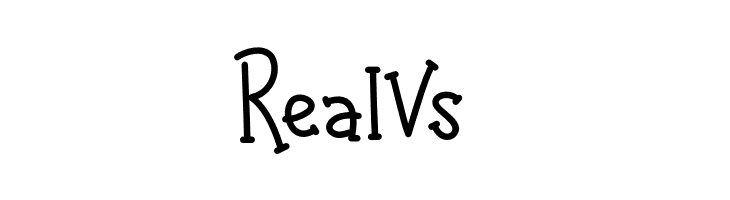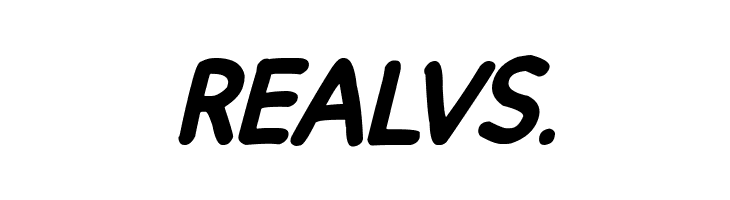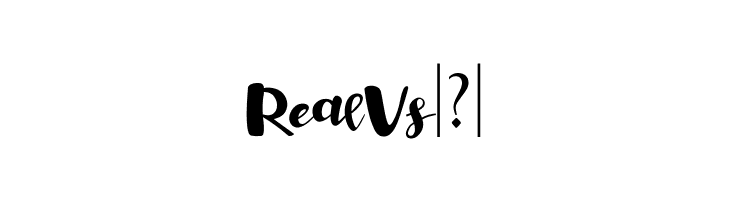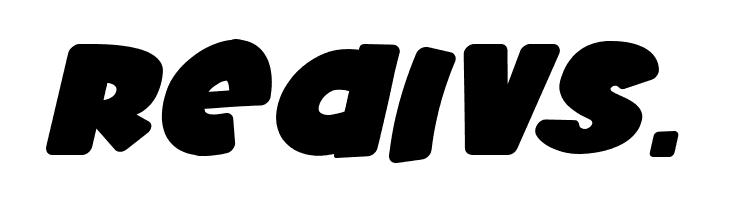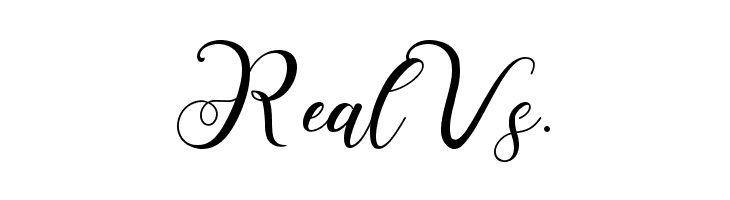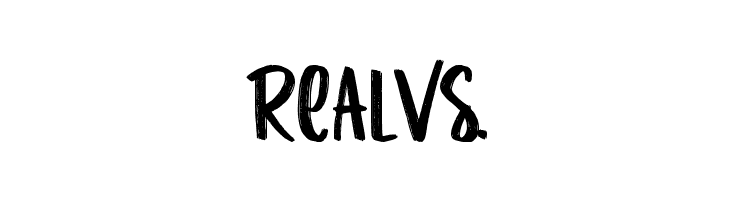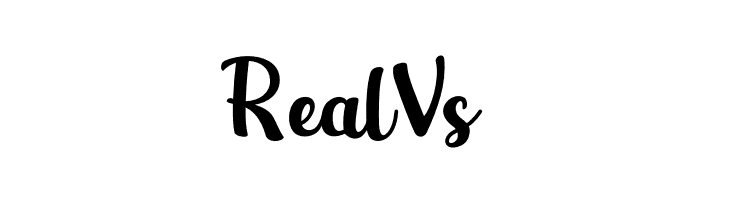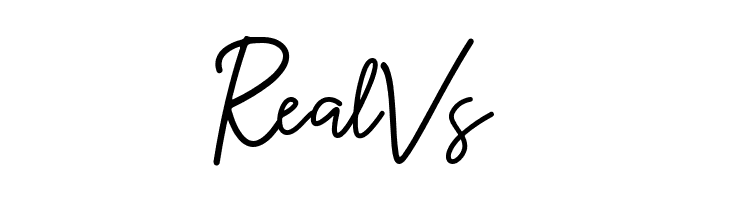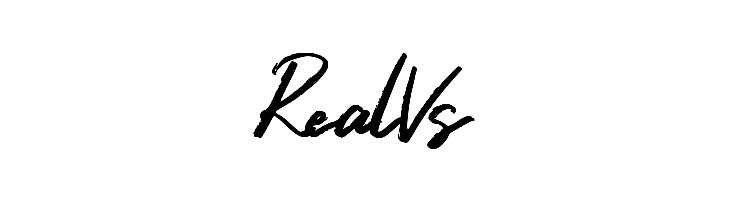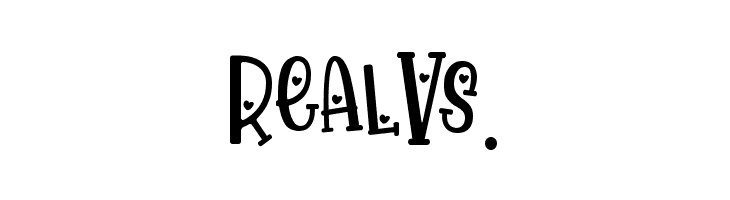
A lively, expressive handwritten font with fluid strokes.
An elegant, flowing script font with a natural handwriting style.
An elegant script font with intricate swirls and high contrast strokes.
A lively script font with fluid, connected strokes and elegant loops.
A playful, hand-drawn font with rounded, bold letterforms.
A playful handwritten font with tall, narrow letterforms and a casual style.
A bold, playful script font with a handwritten feel and rounded edges.
A playful and casual handwritten font with fluid, connected strokes.
A playful, ghost-themed decorative font perfect for Halloween projects.
A lively handwritten font with fluid, cursive letterforms and a personal touch.
A dynamic script font with elegant, flowing strokes and a calligraphic style.
A bold, expressive handwritten font with brush-like strokes.
A lively, cursive script font with fluid, connected letters and varying stroke thickness.
A playful, rounded font with a hand-drawn, cheerful aesthetic.
A playful, bold font with rounded, thick strokes and a whimsical style.
A playful and whimsical font with rounded, expressive letterforms and charming heart motifs.
A playful, bold, and slightly italicized font with a chunky, rounded style.
A dynamic, handwritten-style font with expressive strokes and a casual, artistic flair.
A playful, bold font with thick, rounded strokes and a friendly appearance.
A bold, playful handwritten font with thick, rounded strokes and a lively appearance.
A playful, heart-accented decorative font with bold, rounded characters.
A playful, bold font with rounded edges and a friendly style.
A playful, handwritten italic font with bold, rounded strokes.
A playful, bold, handwritten font with a whimsical and inviting style.
A playful, bold font with rounded, hand-drawn letterforms.
A playful font with characters inside pumpkin shapes, perfect for festive themes.
A playful and elegant script font with decorative swashes and flowing letterforms.
A playful, hand-drawn font with a whimsical and informal style.
A dynamic and fluid handwritten font with elegant cursive strokes.
A bold, geometric font with a modern and angular design.
An elegant, flowing script font with graceful loops and cursive strokes.
A bold, blocky font with a modern and impactful design.
A bold, handwritten-style font with a playful and dynamic appearance.
A dynamic, cursive script font with fluid, interconnected letters.